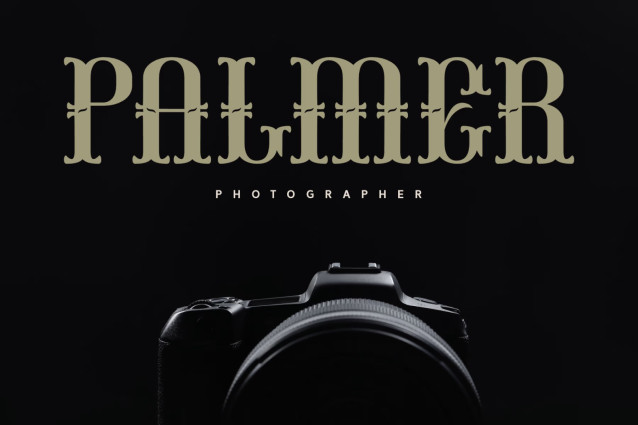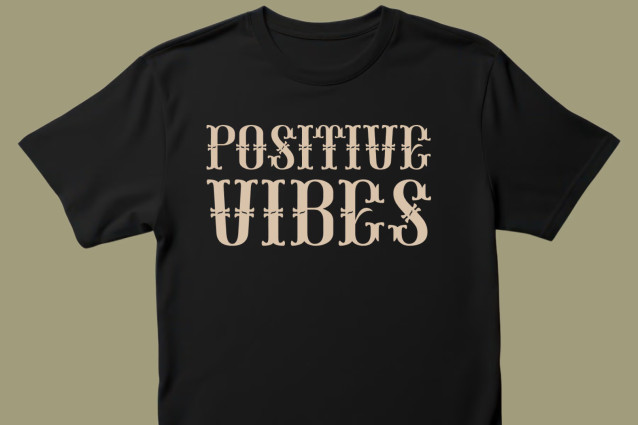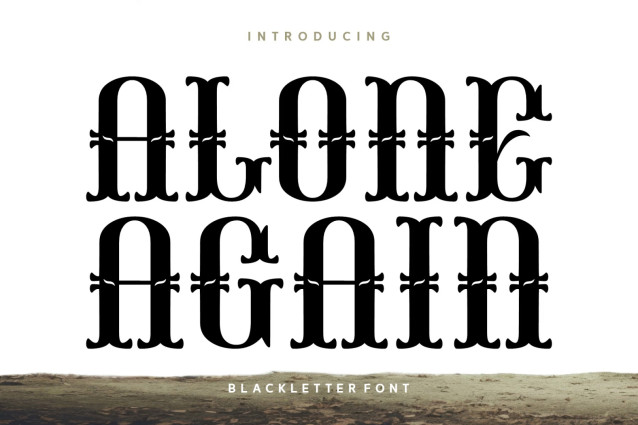
Alone Again Font
Immerse yourself in an exquisite blend of timeless charm and modern-day relevance with the “Alone Again” font. This Blackletter feature marries vintage sophistication with a pinch of grunge appeal. Perfectly adept to enhance a variety of platforms, this versatile typeface shines in settings such as website layouts, fashion-forward magazines, bespoke t-shirts, heartfelt greeting cards, or arresting branding and product packaging. It’s also an ideal companion for invitations, labels, and eye-catching posters or logos.
Looking to create a striking book cover? Look no further. Alone Again celebrates the old-style fonts with a clean, crafty edge. Its commanding presence seamlessly accentuates quotes on t-shirts, and its multilingual support makes it a must-have in a globalized world.
Making its mark in the trend fonts category, the Alone Again font carries the essence of time-honored black fonts that never lose their allure. Be it on book covers or websites, Alone Again is sure to leave an indelible mark.